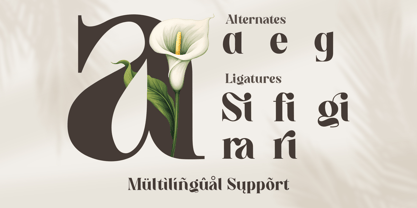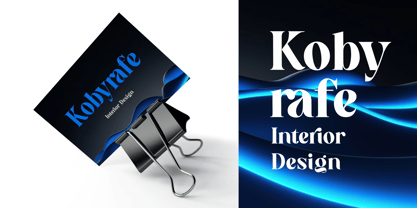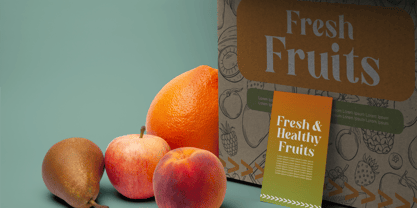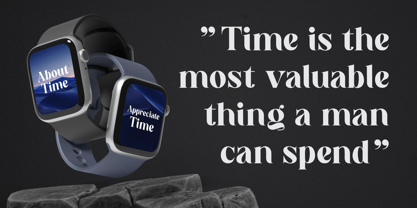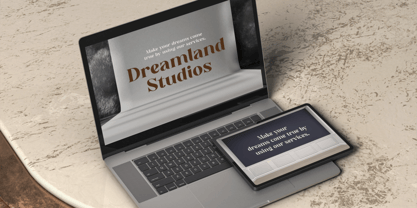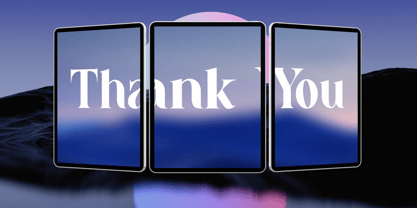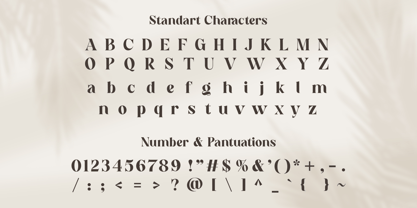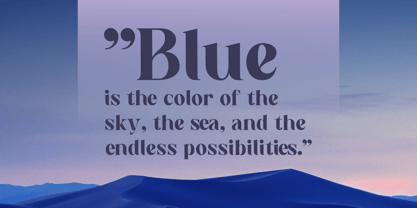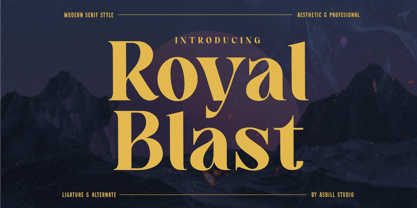
Royal Blast
Royal Blast is a sophisticated modern serif typeface that blends timeless elegance with contemporary refinement. Designed with graceful high-contrast strokes, distinctive ligatures, and beautifully crafted alternate characters, Royal Blast delivers a luxurious visual presence that instantly elevates any design.
Inspired by premium editorial aesthetics and modern branding trends, this typeface offers a perfect balance between classic sophistication and creative expression. Every character has been meticulously designed to create harmonious typography, making headlines, logos, and display text feel bold, stylish, and memorable.
Whether you're creating luxury branding, fashion campaigns, beauty packaging, wedding invitations, magazine layouts, or premium social media content, Royal Blast adds a refined and exclusive touch that captures attention effortlessly.